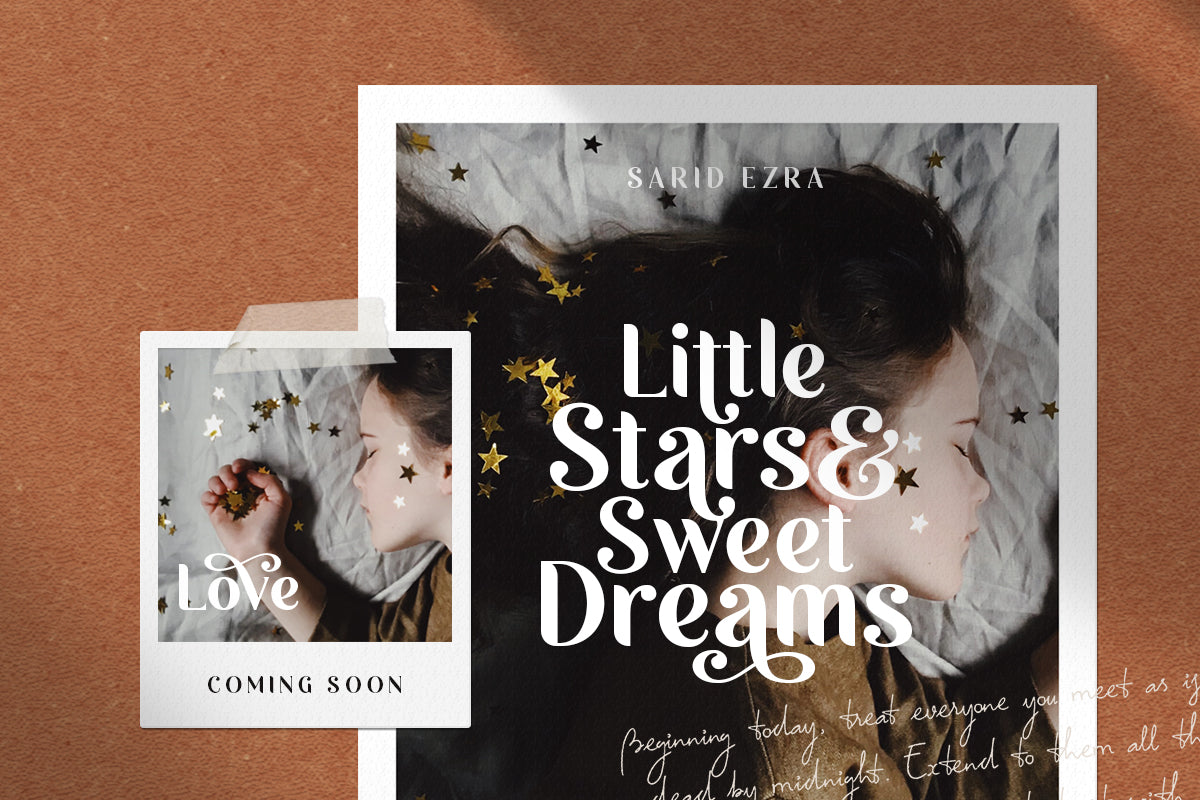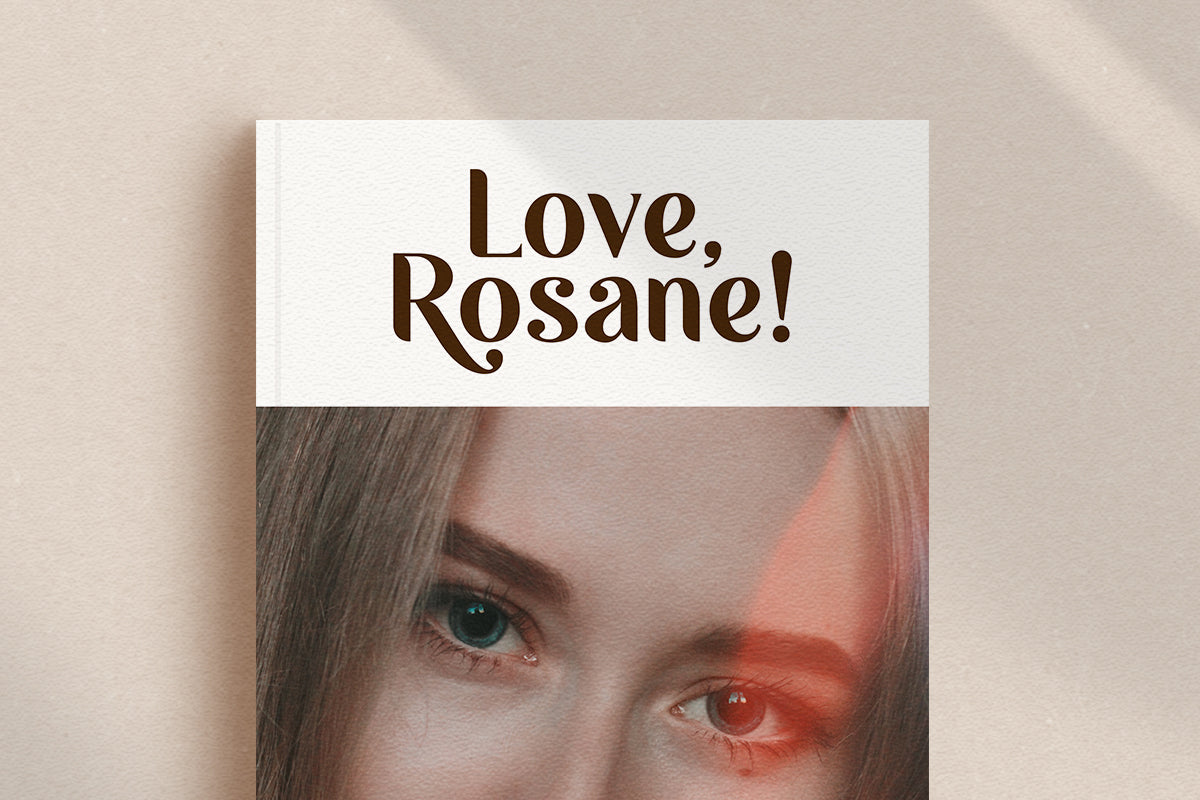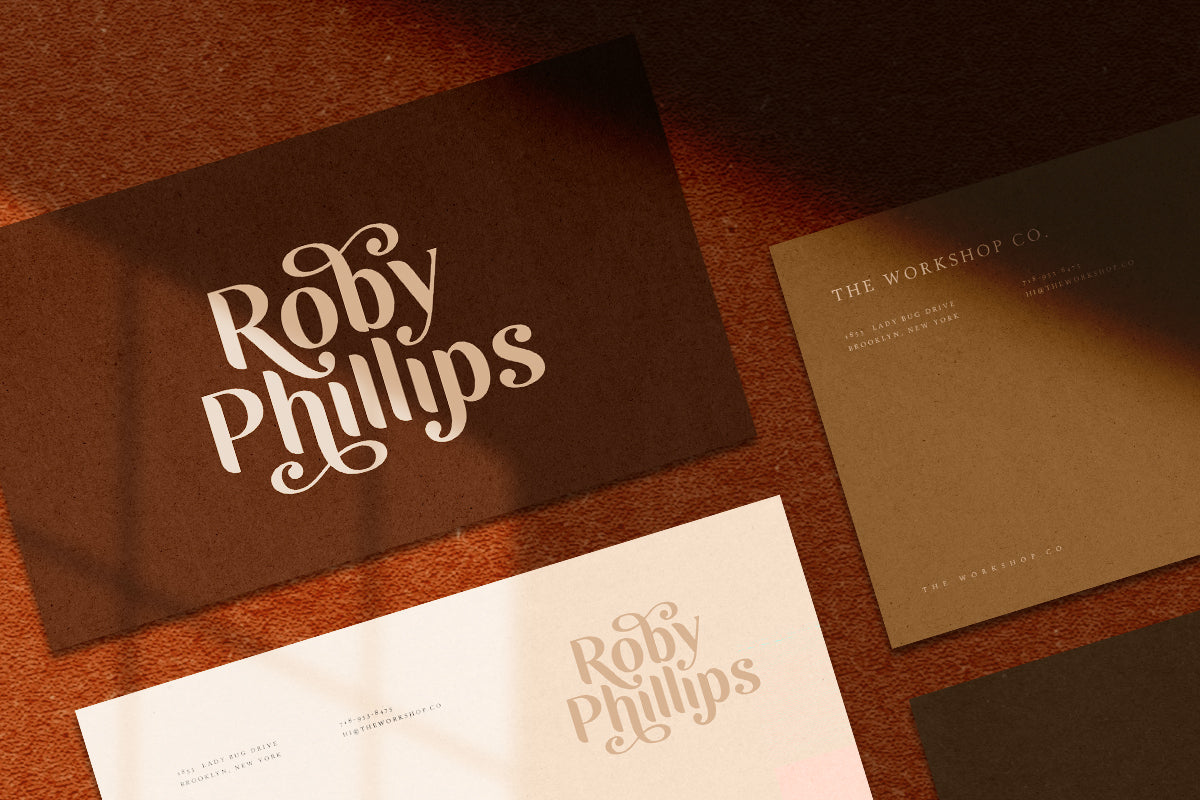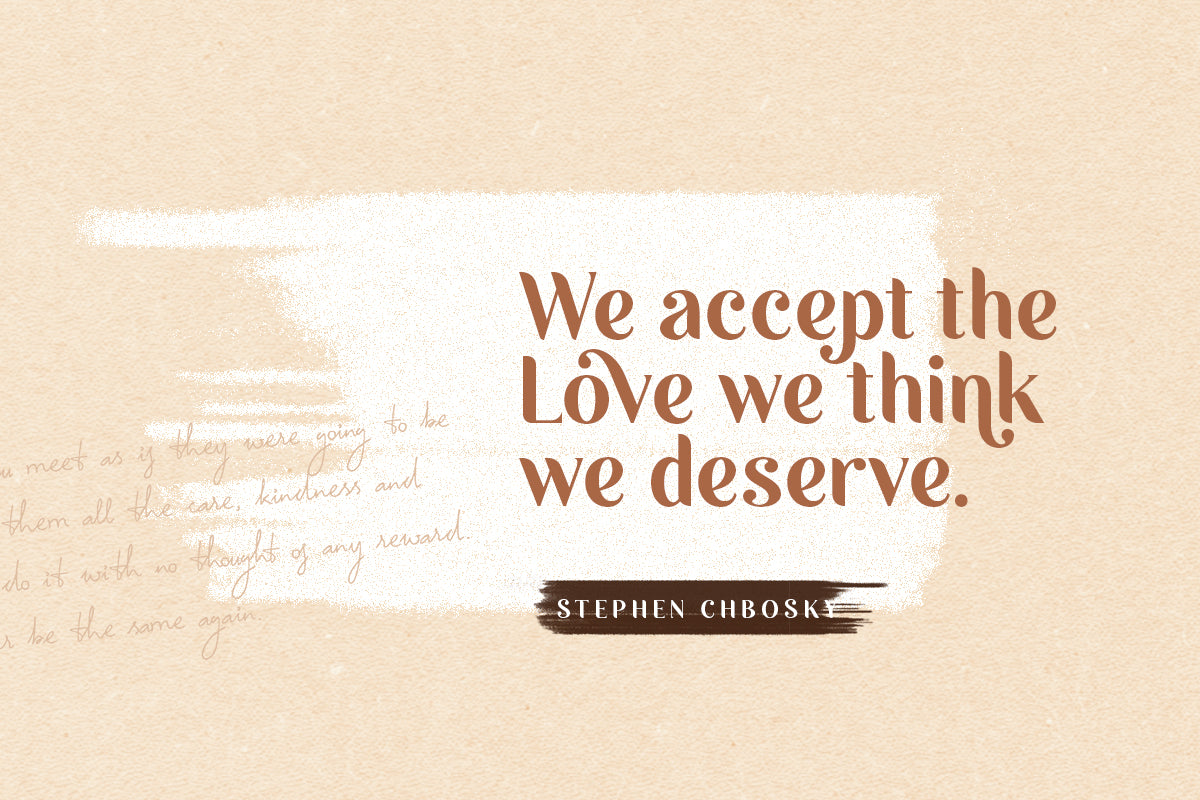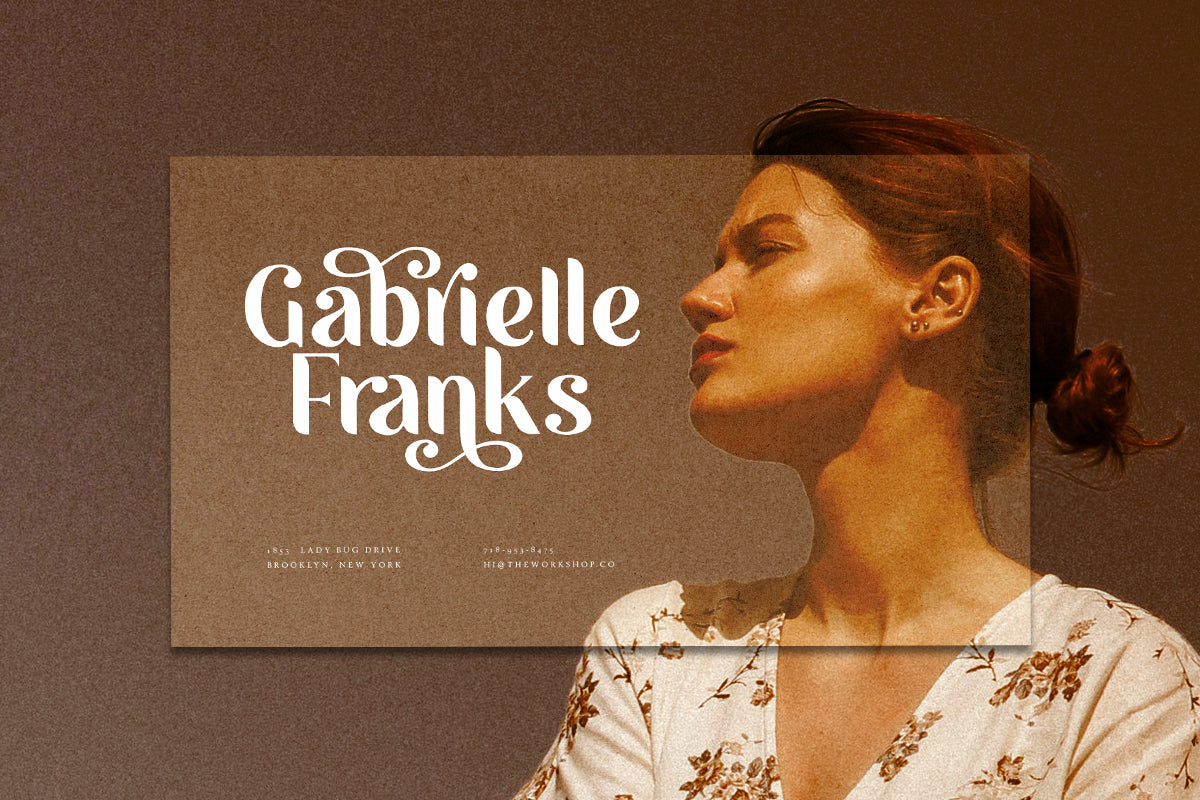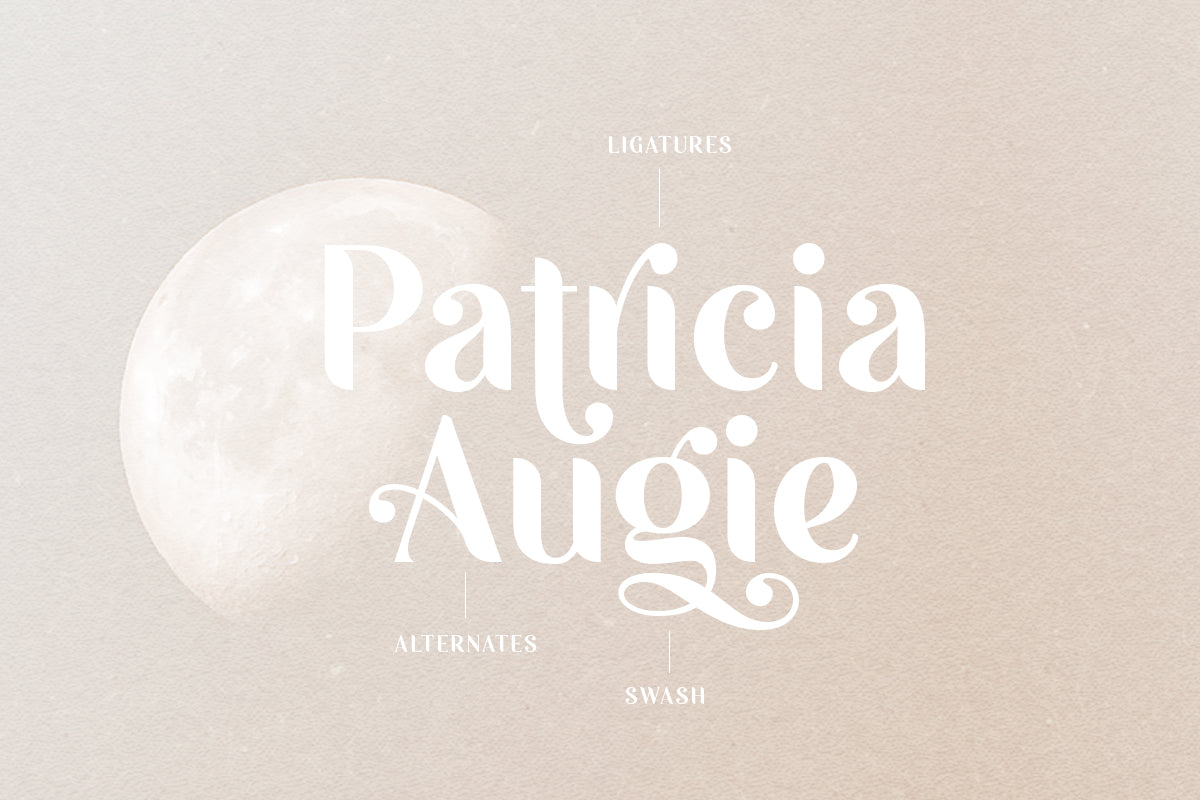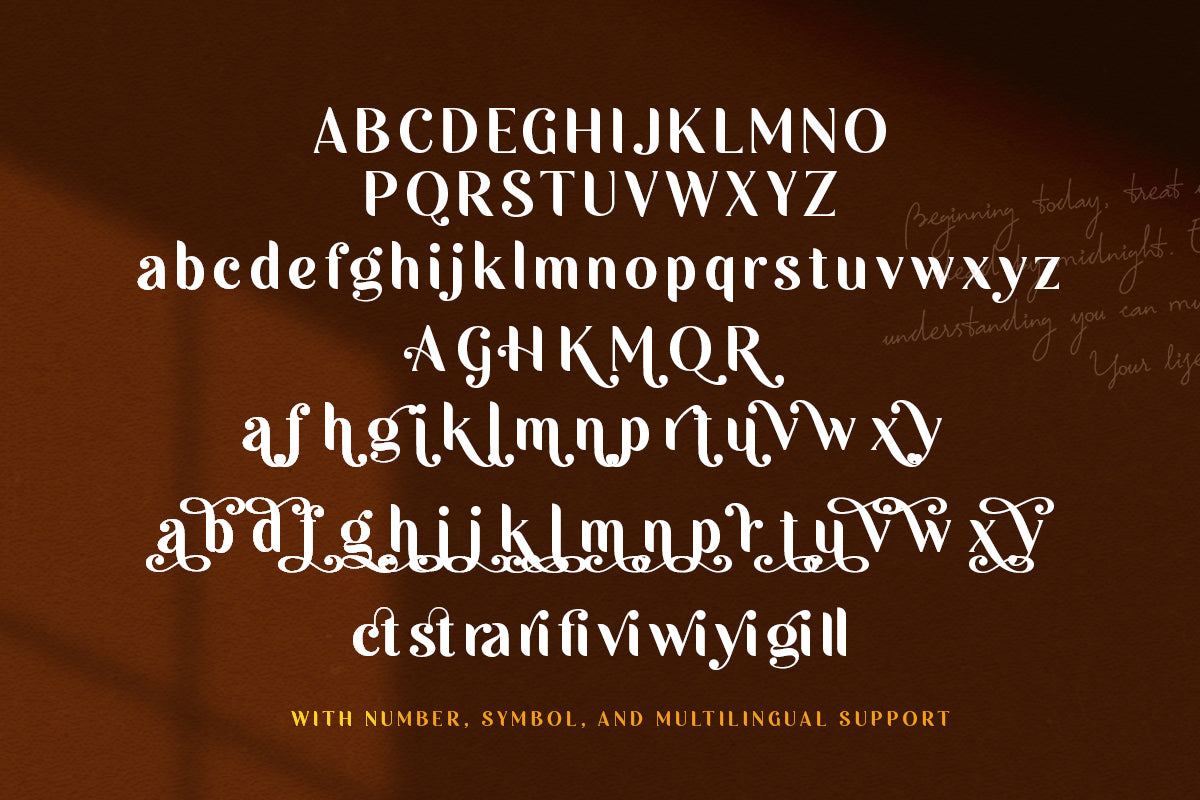
Saphira - Stylish Typeface
Saphira is a bold and elegant typeface featuring numerous ligatures and alternates, designed to support multiple languages and is PUA encoded for easy access to its special characters. This typeface is suitable for a variety of applications, including branding and display purposes.